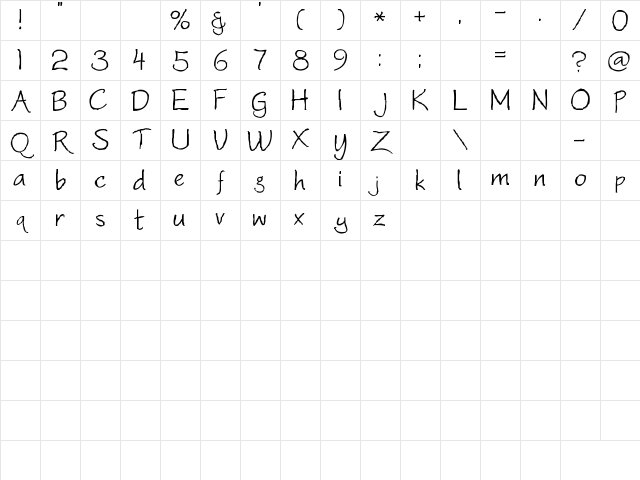
2Peas Brainless 2Peas Brainless Free Font
2Peas Brainless 2Peas Brainless
Style: 2Peas Brainless
Complete 2Peas Brainless 2Peas Brainless glyph index. Displaying only characters natively supported by 2Peas Brainless 2Peas Brainless font.
Design Context for 2Peas Brainless
2Peas Brainless is a composed and adaptable typeface that performs quietly and consistently across a wide range of design contexts.
Pro Tip: Use 2Peas Brainless in both headline and body roles to test its range before committing to a single application.